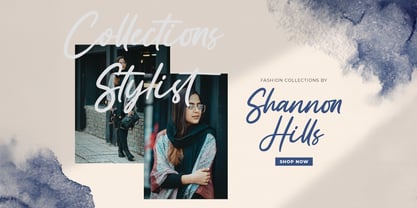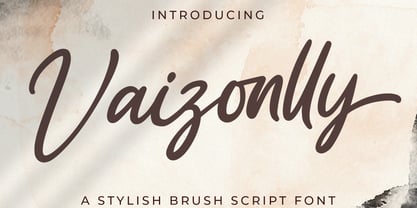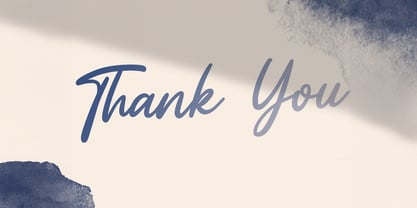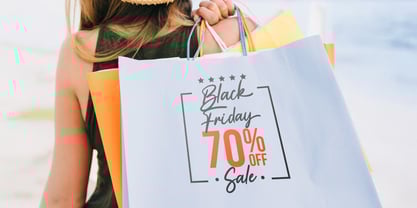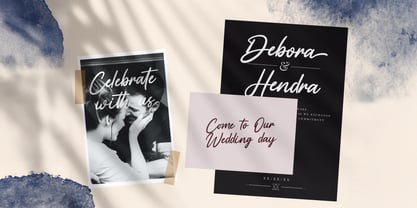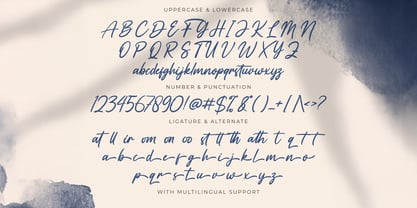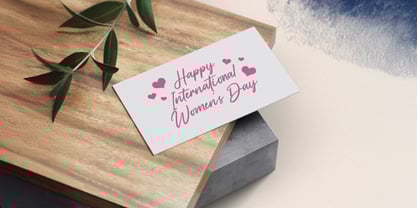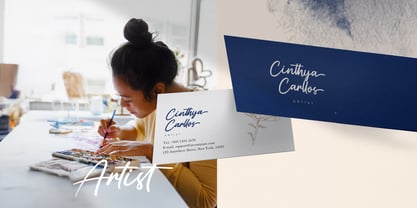
Die Schriftfamilie Vaizonlly wurde von Virgiawan Listanto entworfen und von Stringlabs Creative Studio veröffentlicht. Vaizonlly enthält 1 Stile.
Vaizonlly is a bold script font with high-impact strokes and a stylish, flowing rhythm. Designed to turn heads, it combines the energy of hand-lettering with a clean, modern edge perfect for designs that need both attitude and elegance.
Vaizonlly